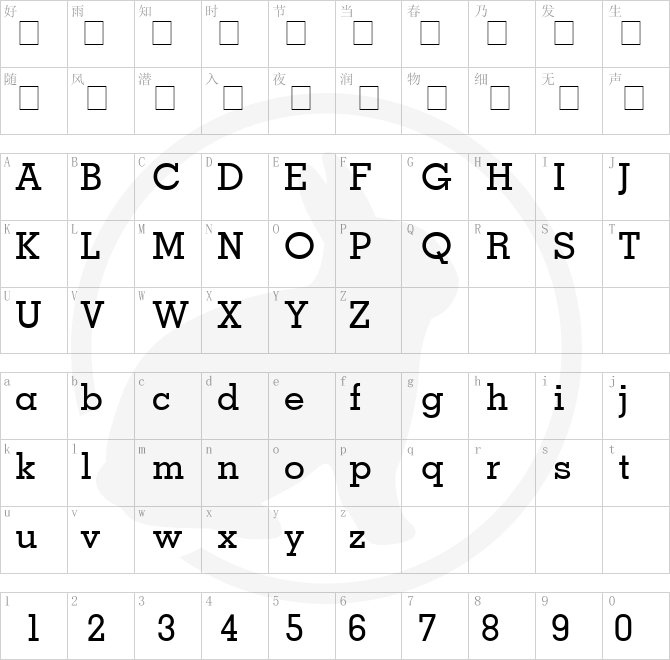
- Font Name:Jaak SSi
Jaak-SSi-Medium.ttf is a very beautiful artistic font, Jaak-SSi-Medium.ttf is widely used in the design and printing of various books and pictures,Jaak-SSi-Medium.ttf has a strong visual impact,Jaak-SSi-Medium.ttf is a commonly used font in newspapers, magazines and books, and is used in posters, e-commerce Poster design, store design, logo design, font design and other fields.Jaak-SSi-Medium.